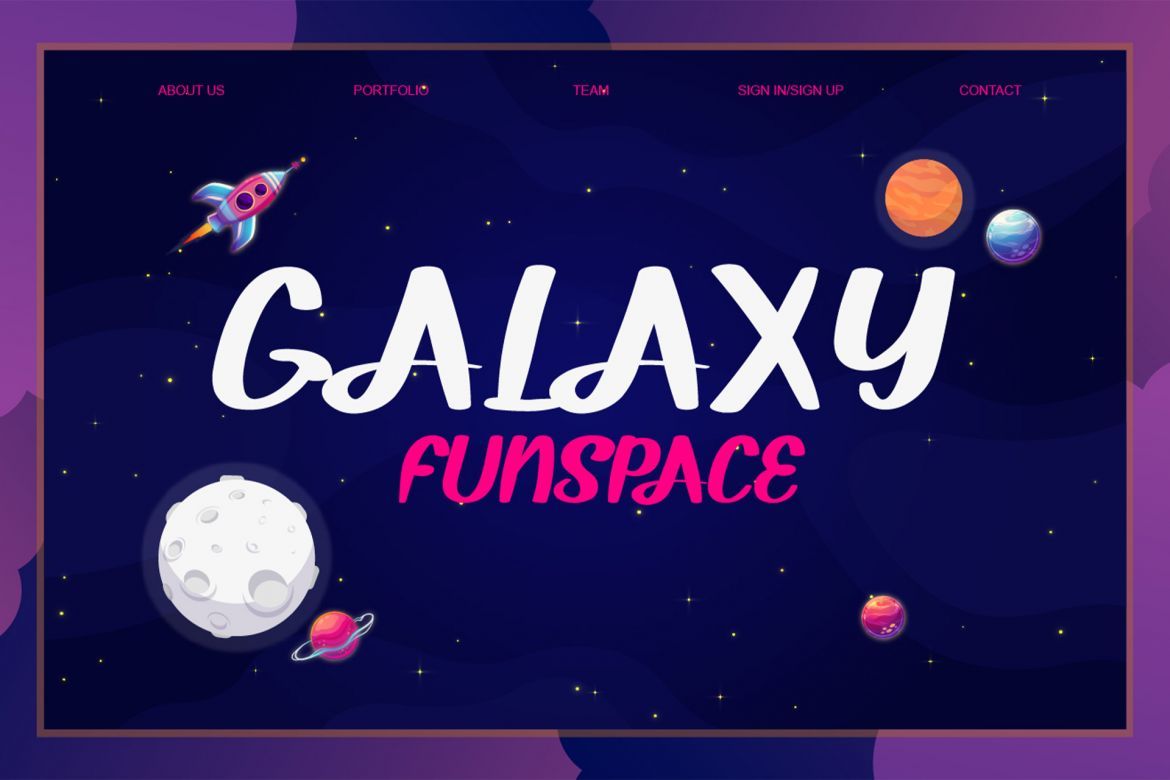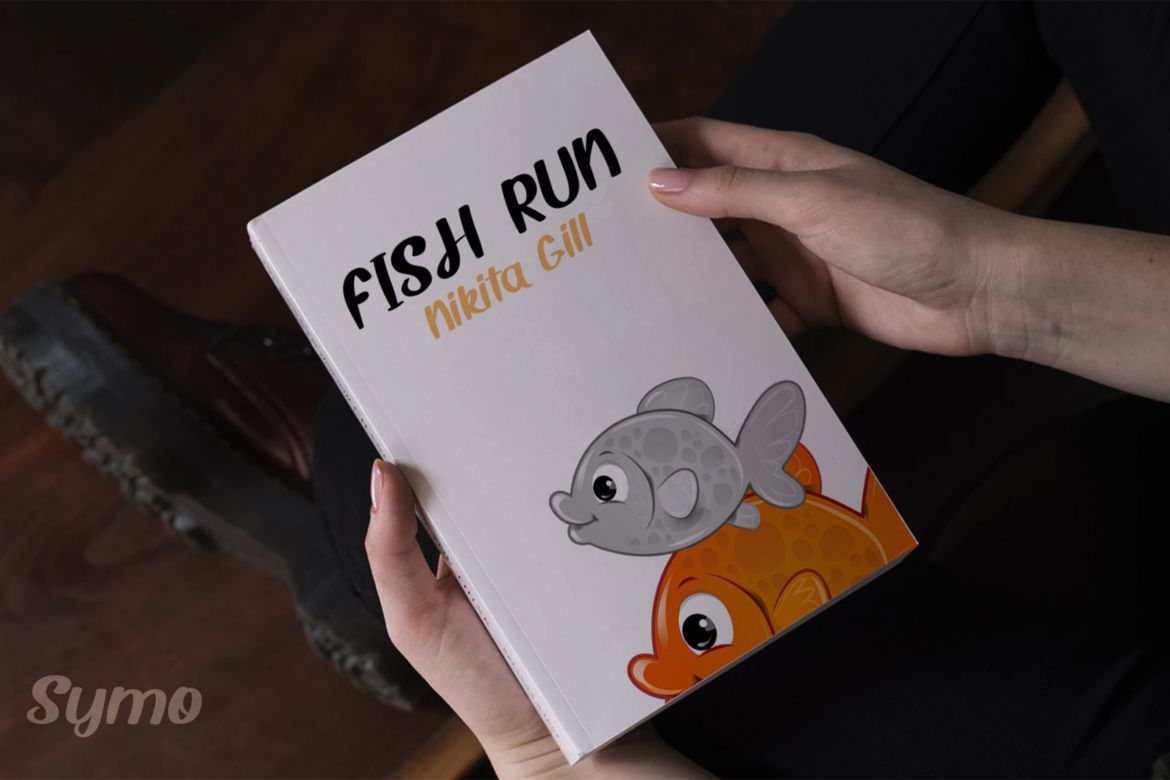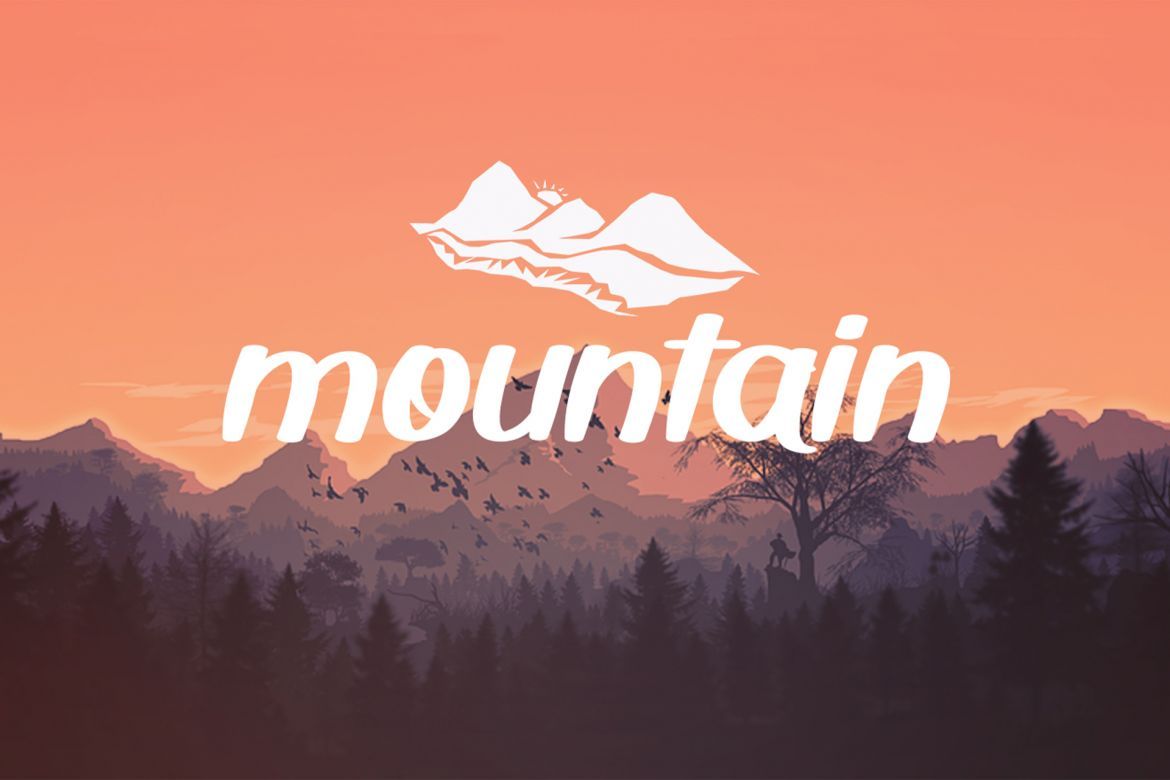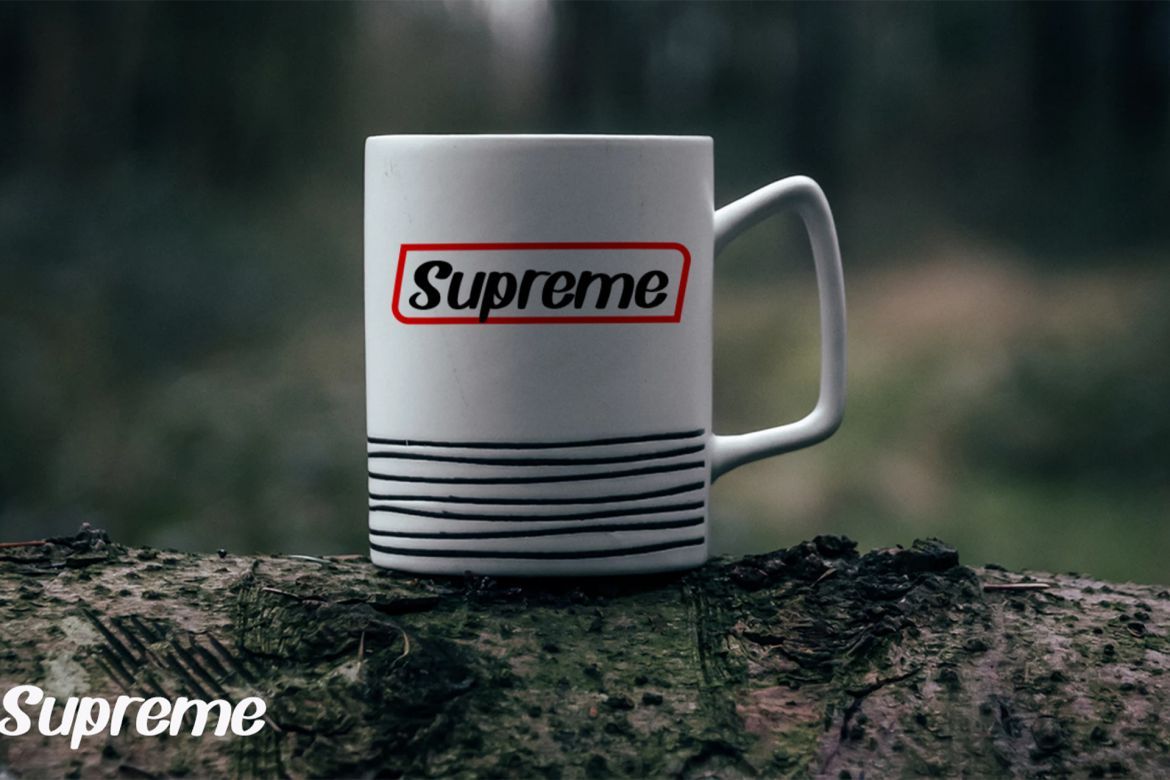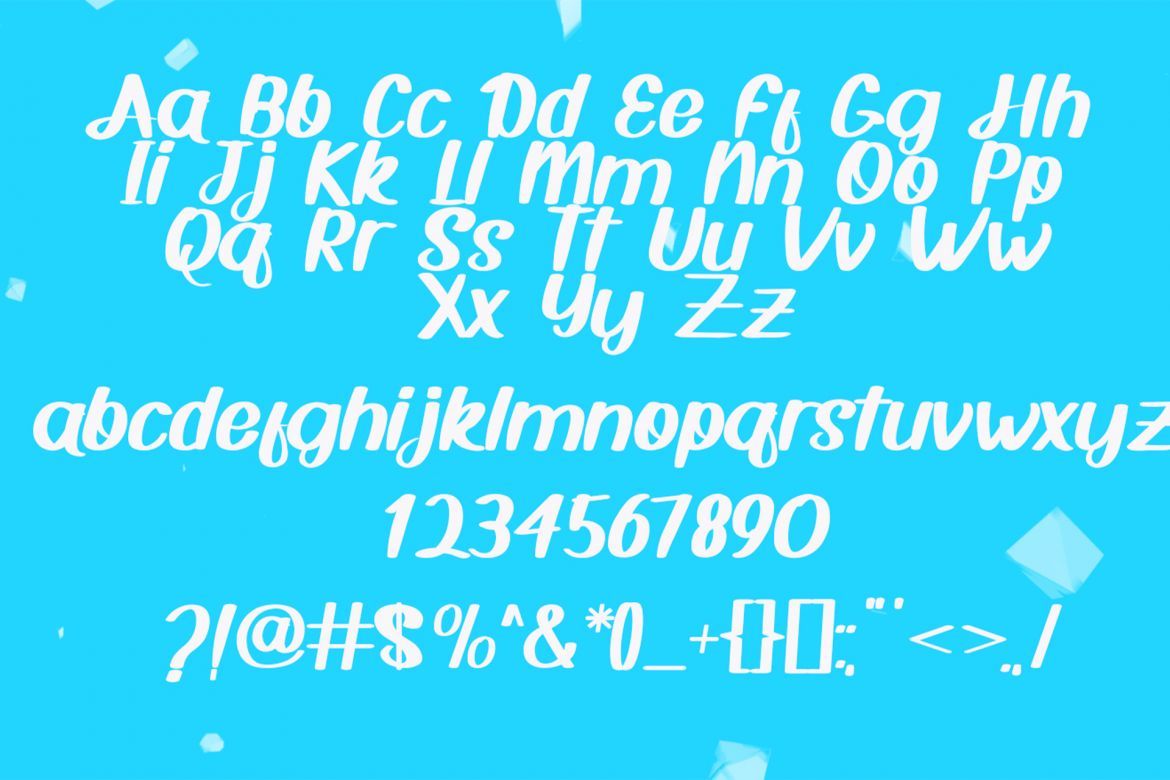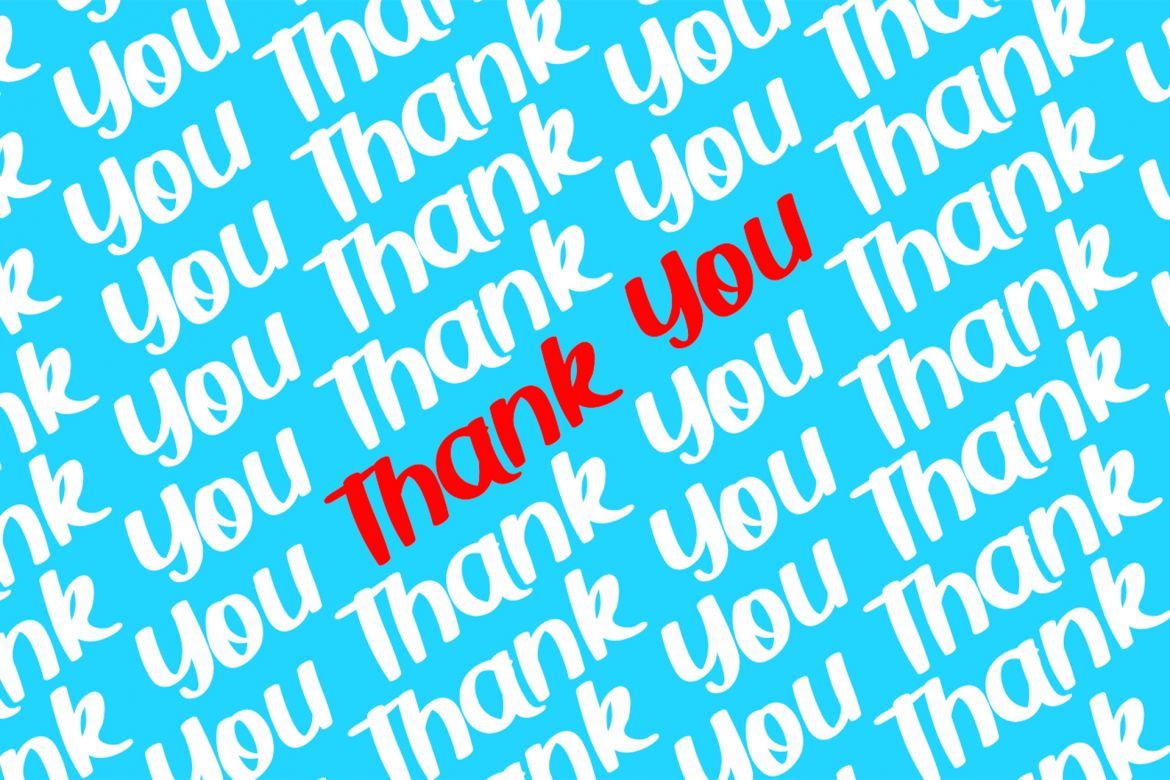
Symo Font
Symo is a font with cute characters and a fun looking font. You can use it to display children’s clothes, book covers, Instagram or YouTube.